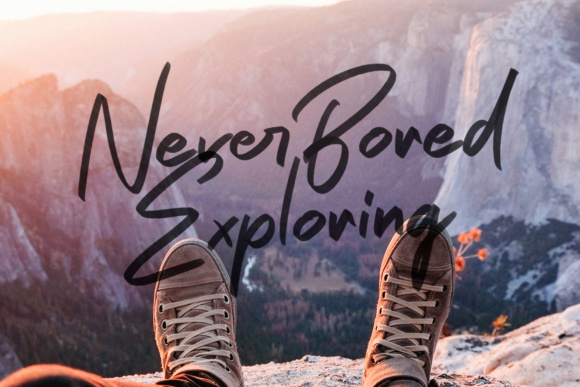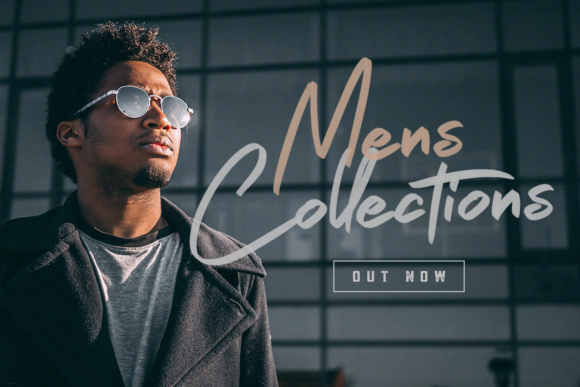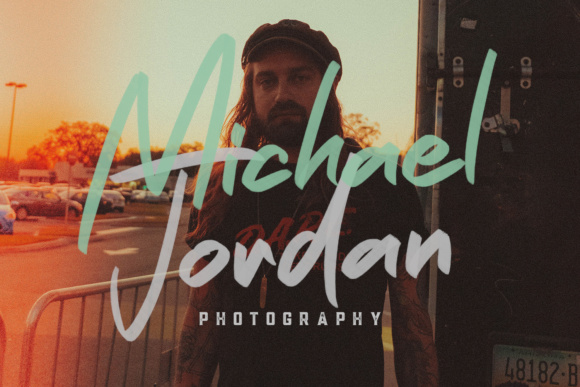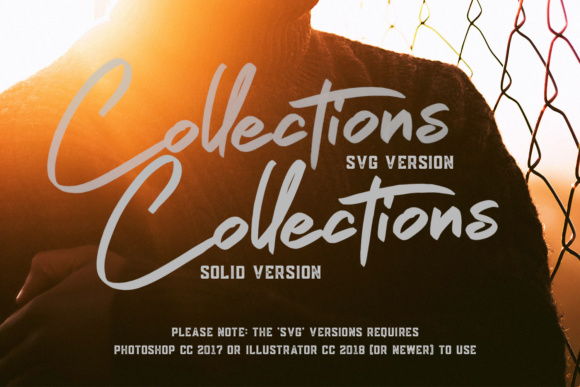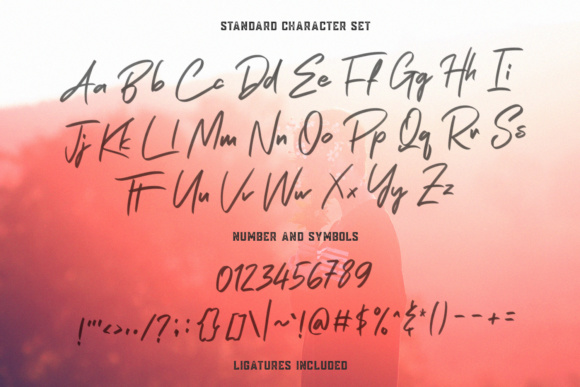
Introducing The Amazing Boombs, a stunning and realistic brush pen script font that will add a touch of authenticity and flair to your designs. With its fast flow and dry textures, this font captures the essence of brush pen calligraphy in a truly remarkable way.
The Amazing Boombs is a color font, specifically an OpenType-SVG font. This means it offers rich, vibrant colors and intricate textures that closely resemble the look of brush pen strokes. You can fully experience the visual impact of this font when using it in compatible design software such as Photoshop, Illustrator, Silhouette, and Inkscape. These programs support color fonts and provide the ideal environment for exploring the full potential of The Amazing Boombs.
Whether you’re designing hand-lettered quotes, logos, invitations, or any other creative project, The Amazing Boombs will elevate your work with its realistic brush pen textures and dynamic flow. Its authenticity and attention to detail make it a fantastic choice for adding a touch of handmade artistry to your designs.
Embrace the expressive qualities of The Amazing Boombs and let its fast flow and dry textures bring your creations to life. Explore the possibilities of this remarkable font in your preferred design software and witness how it enhances your projects with its realistic brush pen script. Get ready to amaze with The Amazing Boombs!